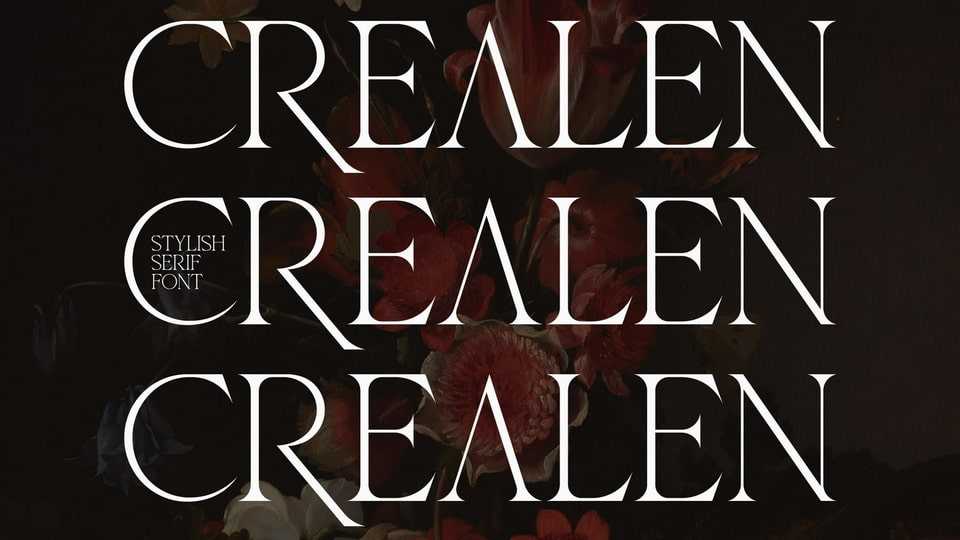
Download Crealen font, a stylish serif typeface with a unique style and modern look. Crealen font is perfect for elegant and luxury logos, book or movie title design, fashion brands, magazines, clothes, lettering, quotes, and so much more.